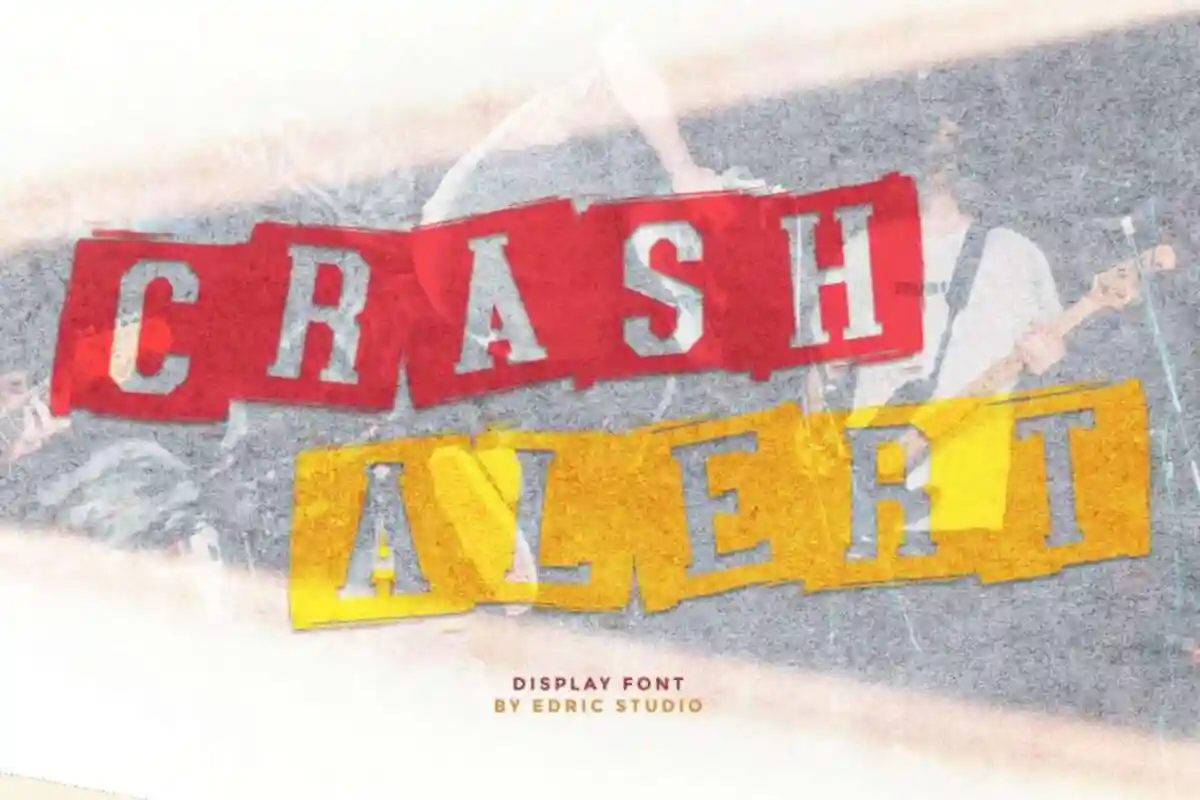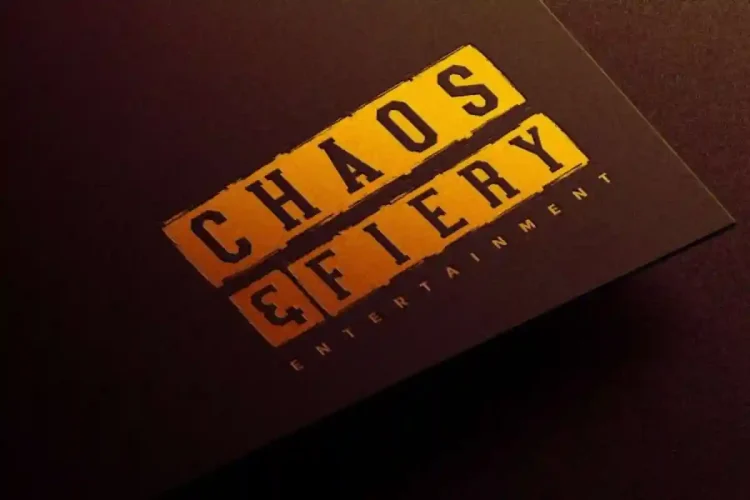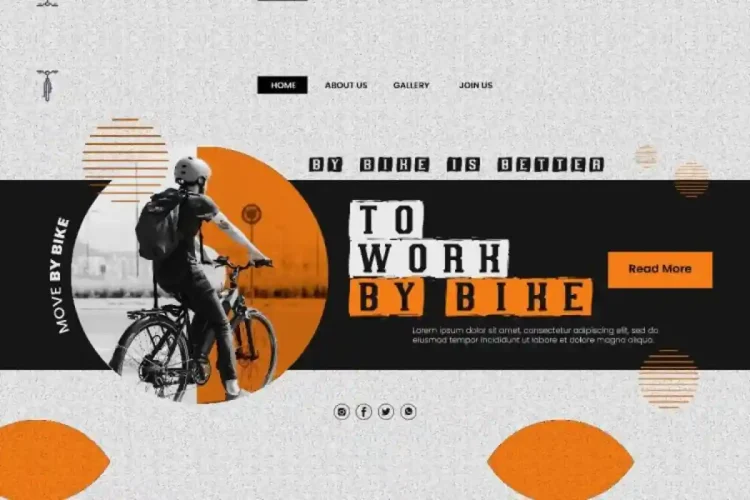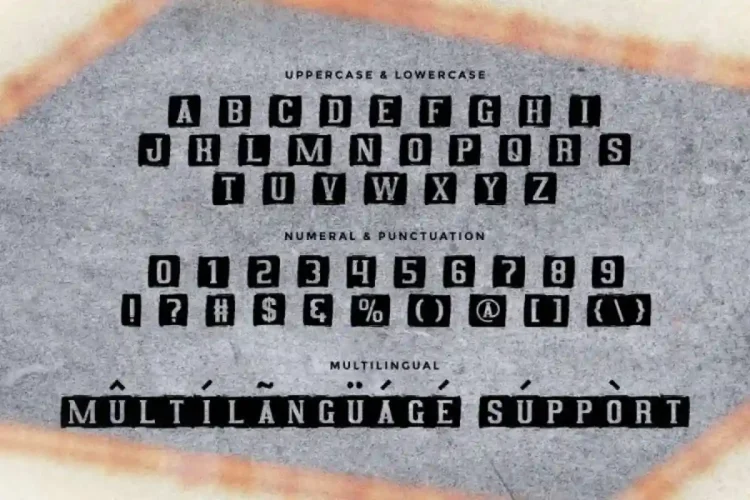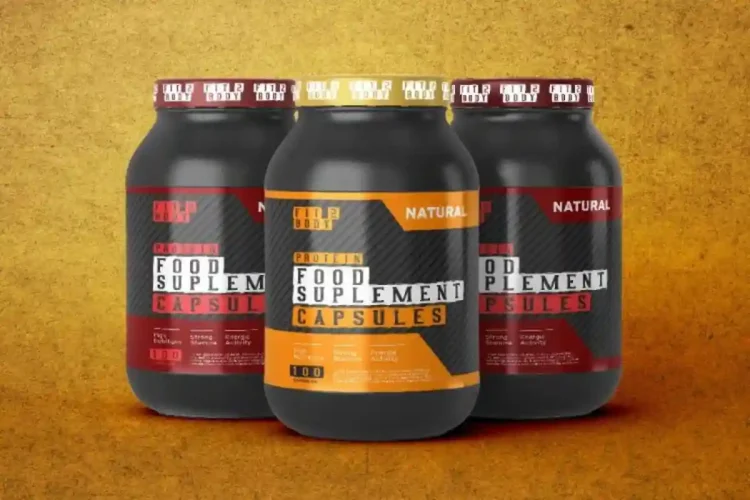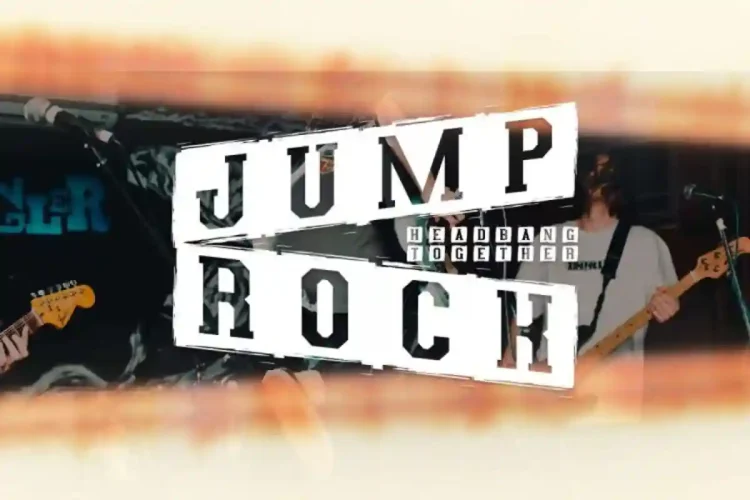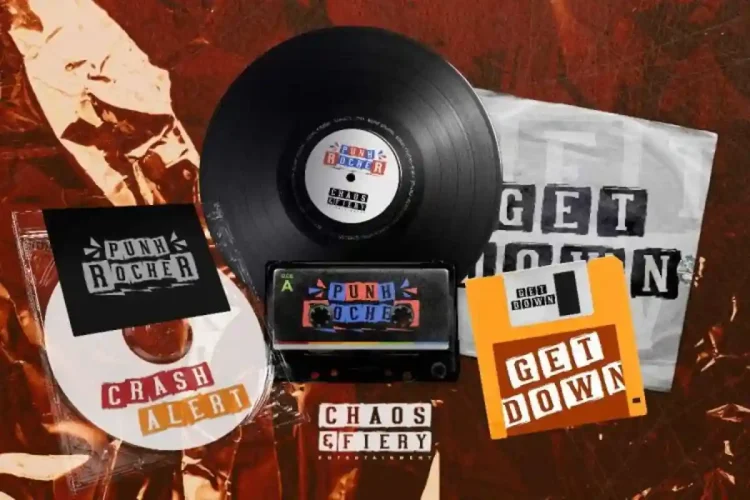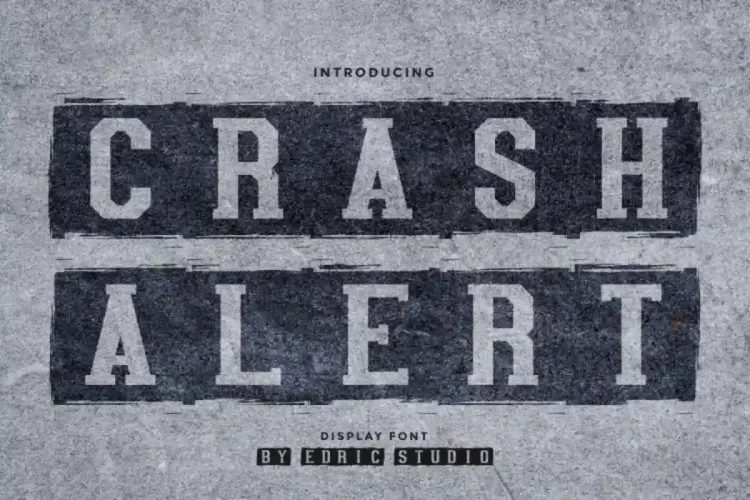
Crash Alert Display Script Font
Crash Alert Display Font is a display sans serif with unique style font. This is a simple sporty look with brush horror effect. Will be perfect for advertising, branding, logo, signage, stationery etc. This stylish font is designed to stand out, making it the perfect choice for projects that demand attention and creativity.
Crash Alert Display Font is a sporty stylish font with horror feel From EdricStudio. This font will Work on PC & Mac with Simple installations. Accessible in the Adobe Illustrator, Adobe Photoshop, Adobe InDesign, even work on Microsoft Word. Best of all, it includes PUA Encoded Characters, giving you full access to all special glyphs without the need for extra design software.